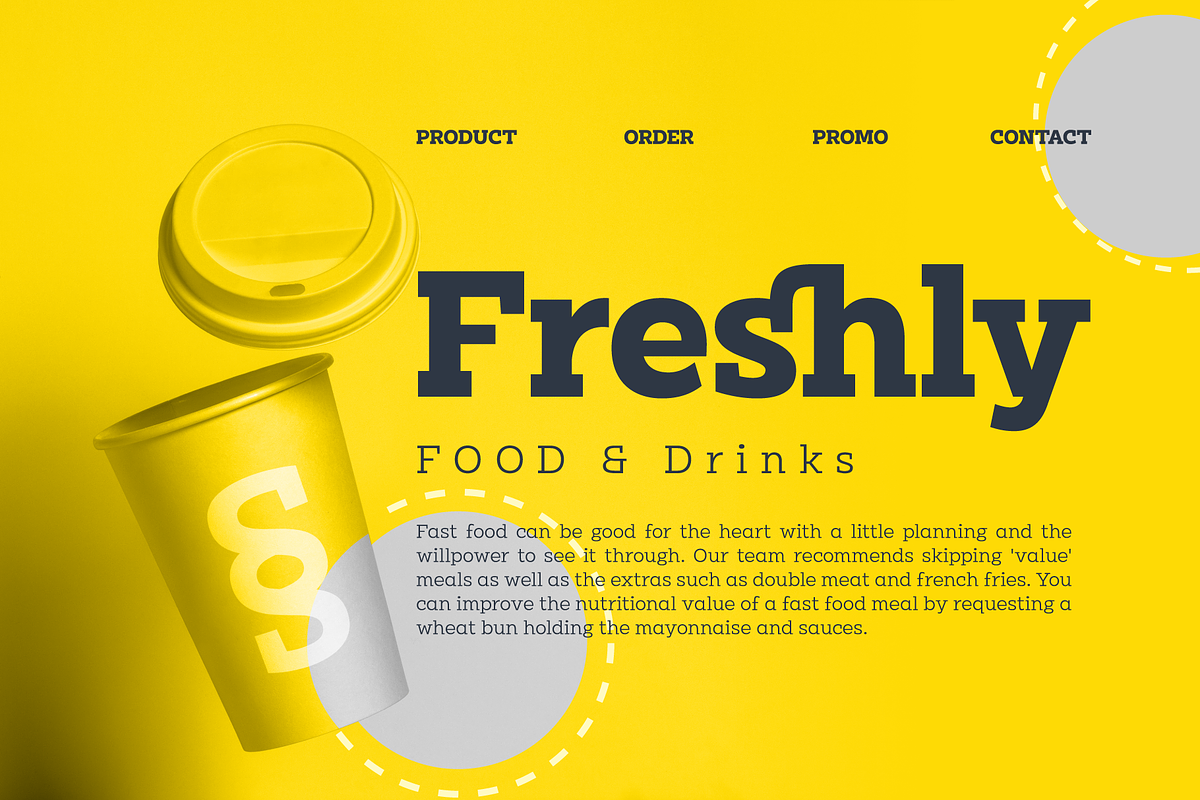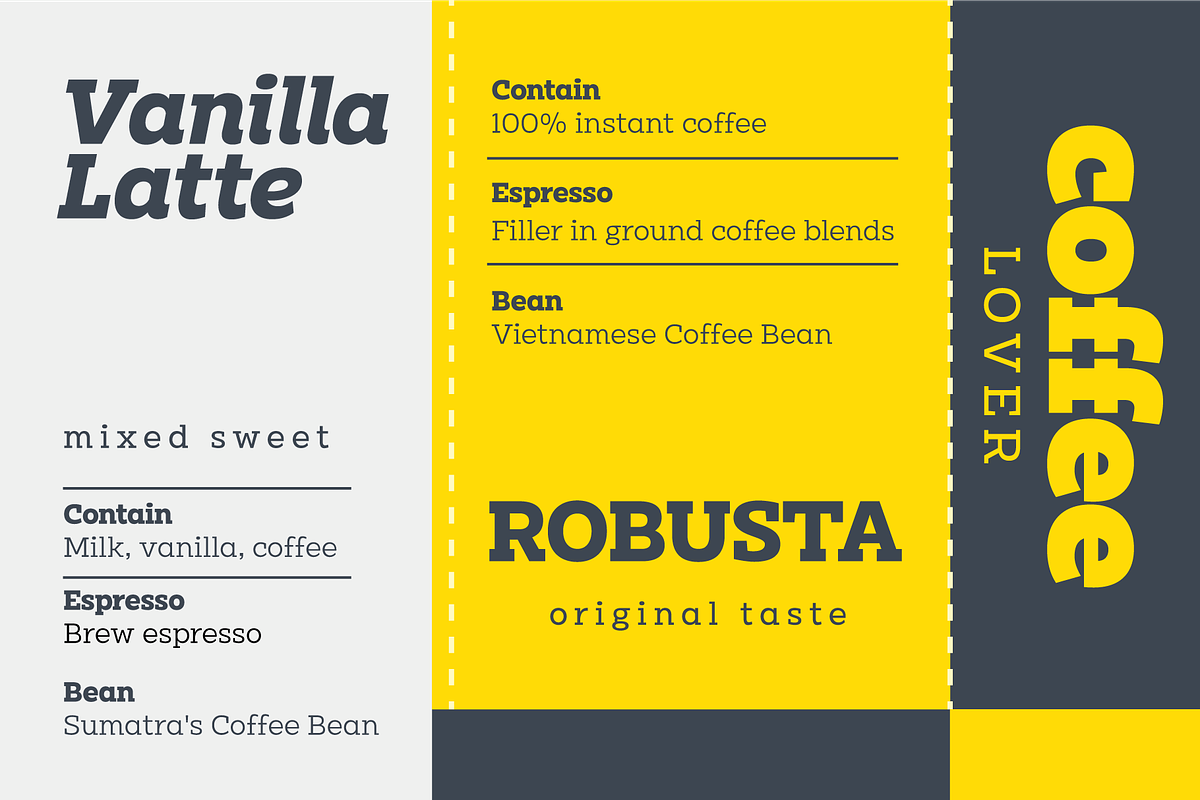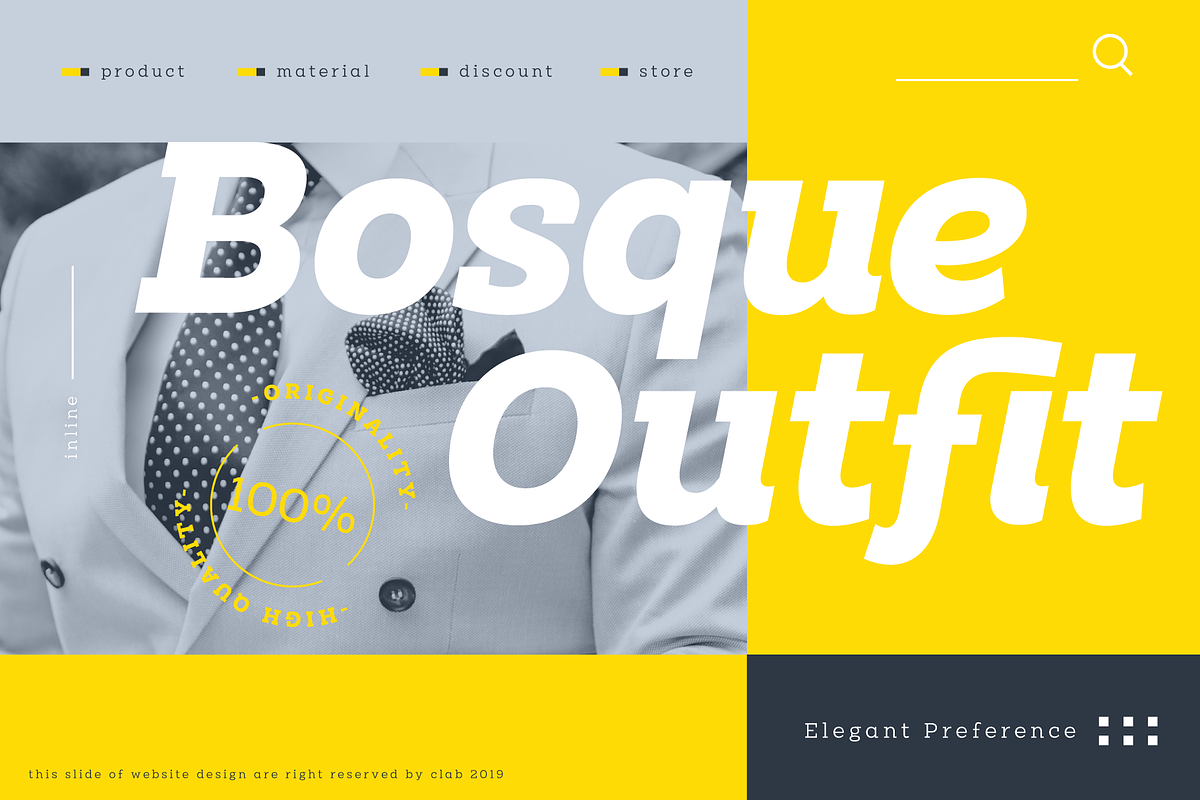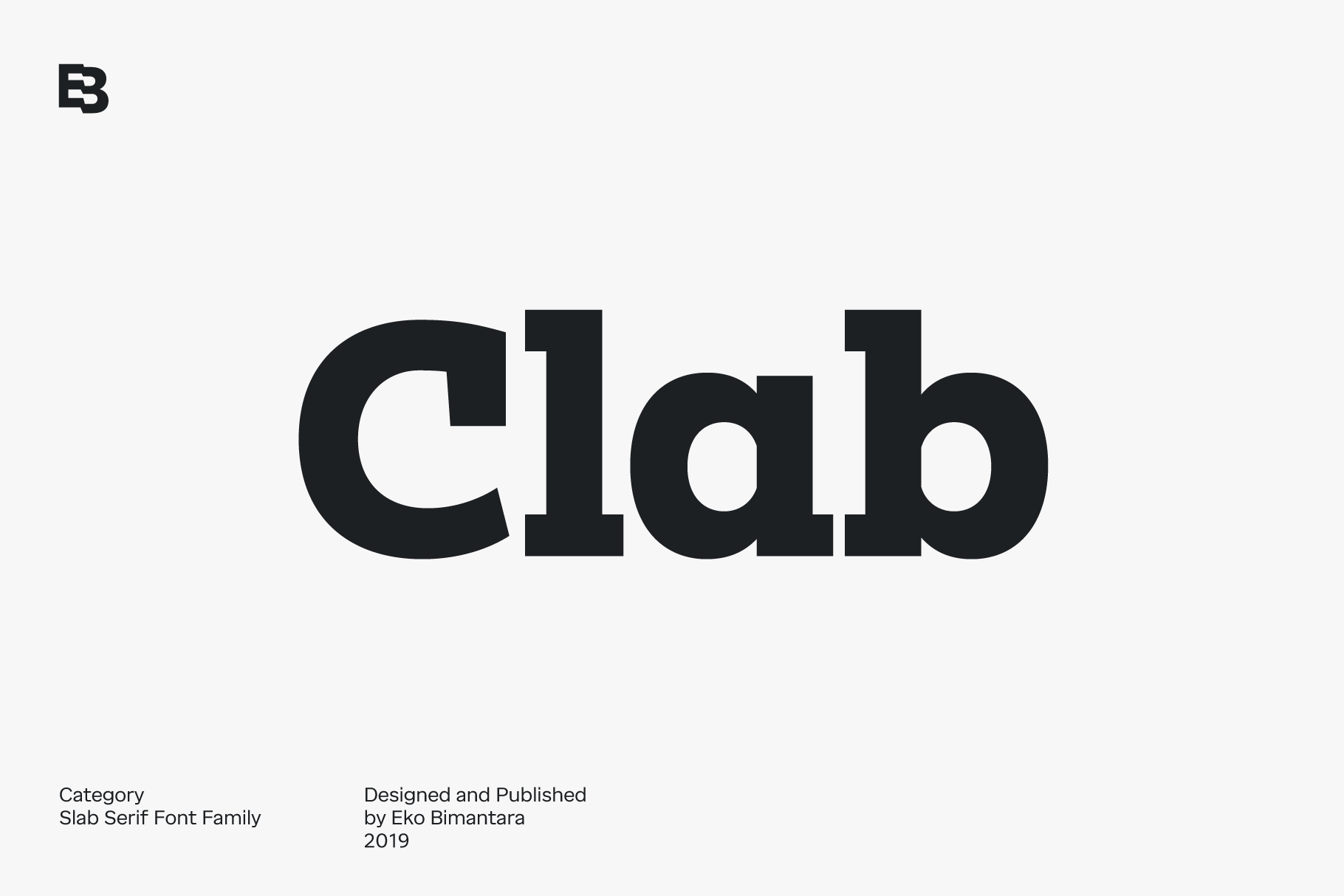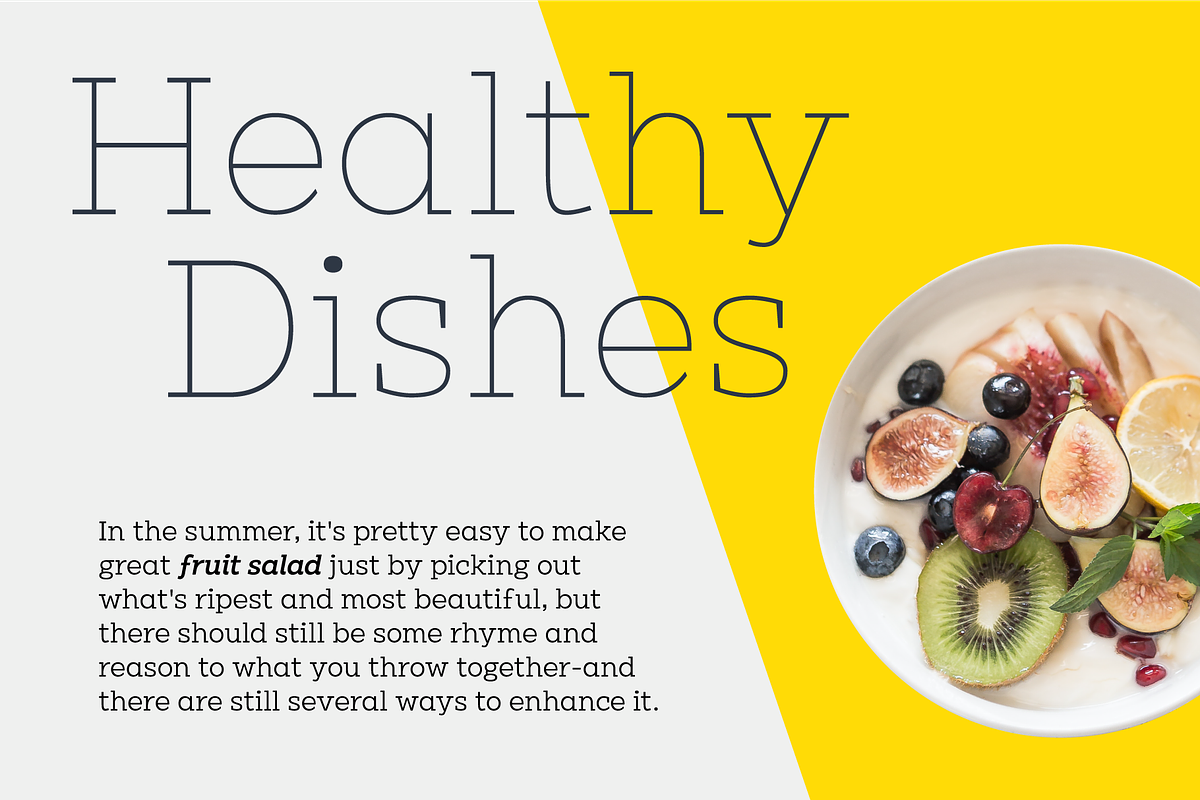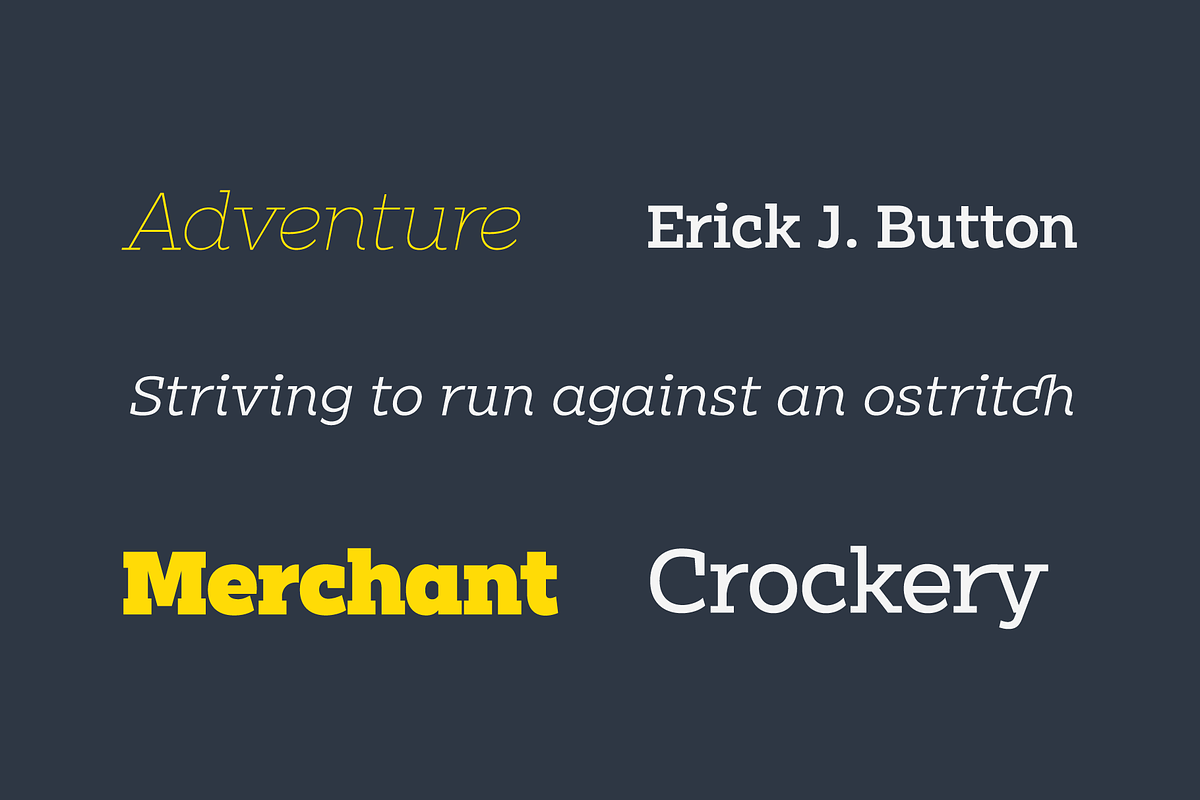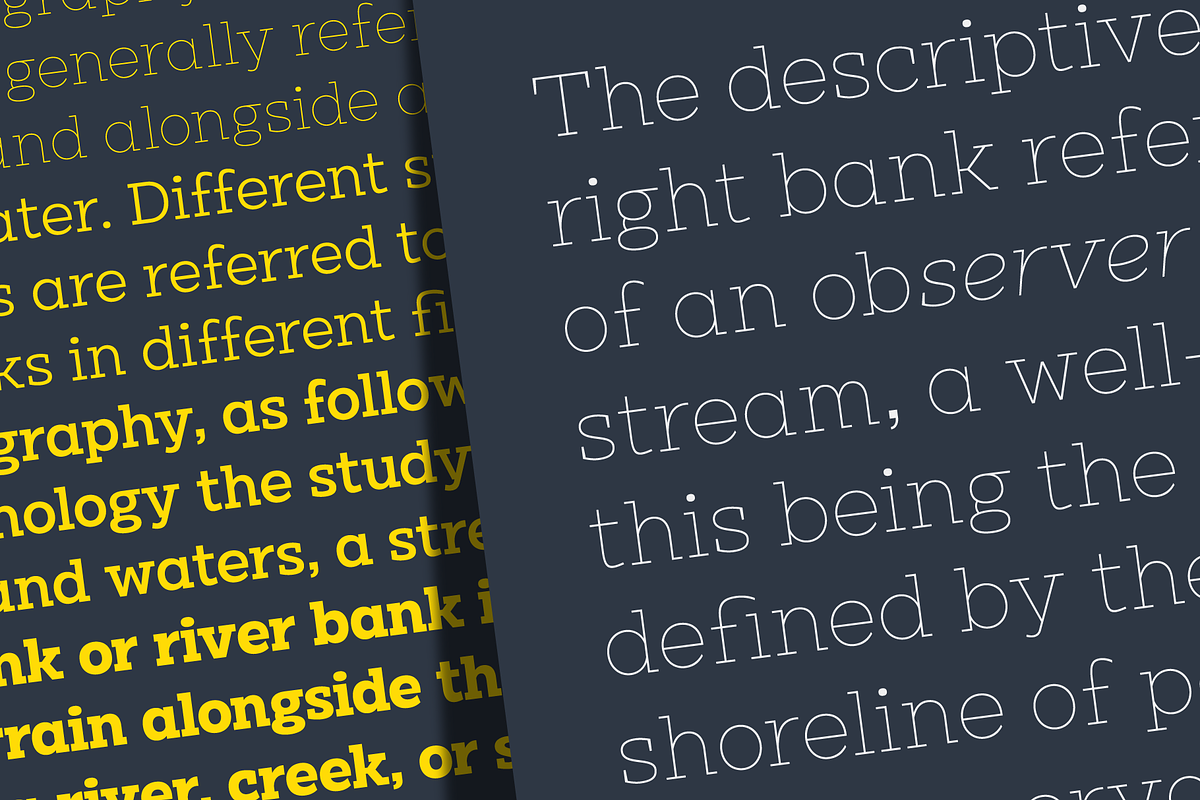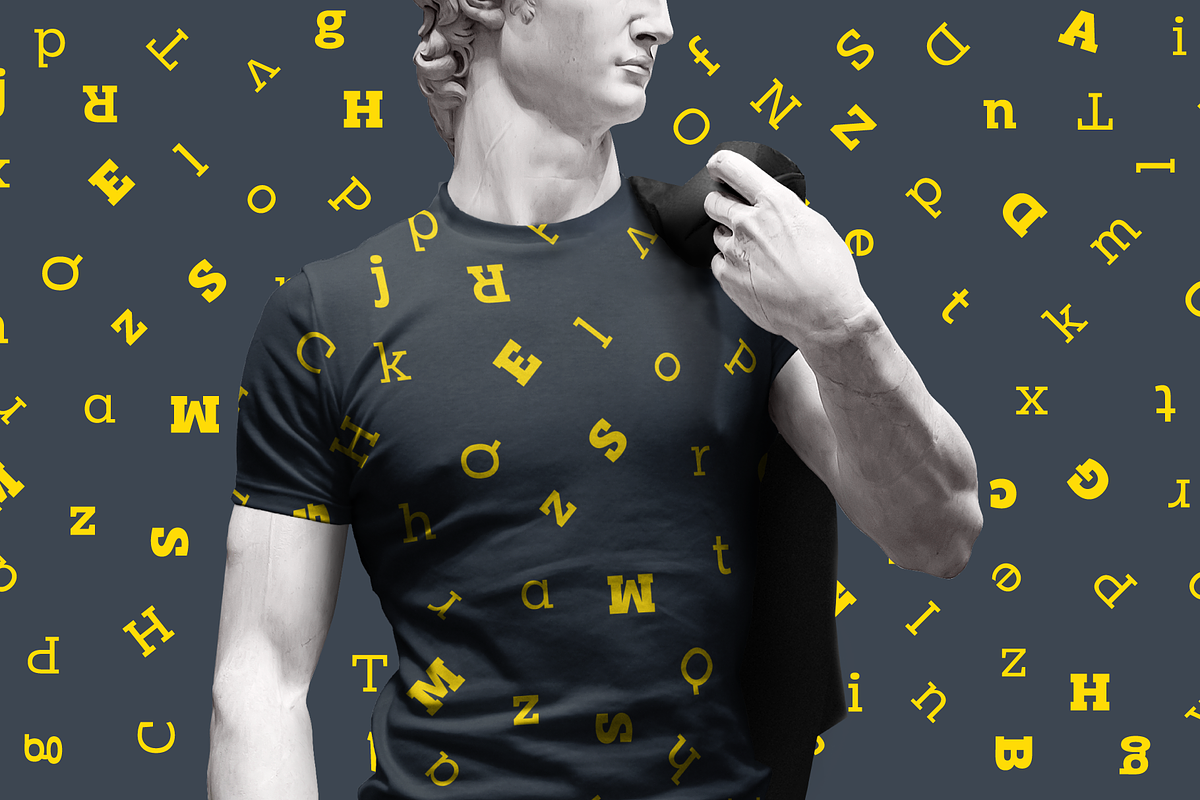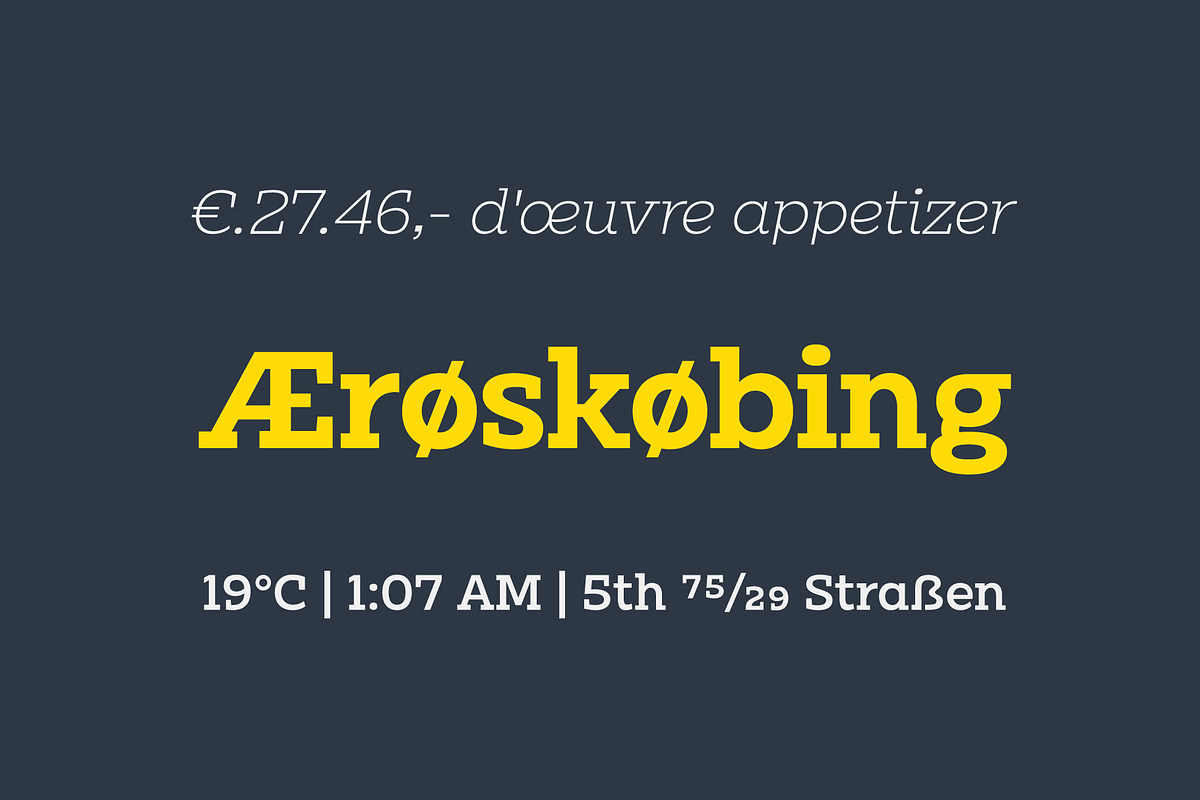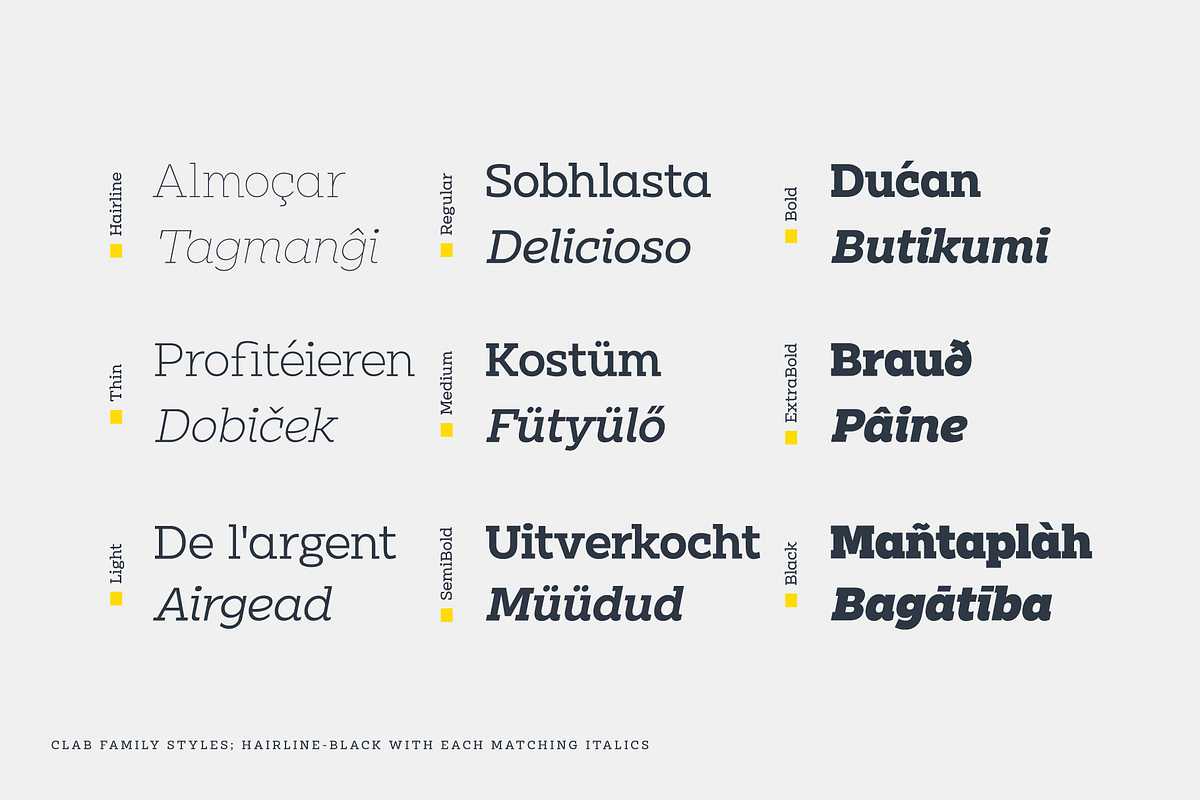
Clab; 18 fonts
Clab is meant for branding. The initial characters were build in bold and chunky personality, yet the thin strokes and flowy italics gives it a versatile and unique set of family. The glyphs crafted in low contrast strokes, short ascenders and descenders and low caps. Clab consist of 9 weight from Hairline to Black with each matching italics. Contain more than 400 glyphs with some OpenType features e.g, standard and discretionary ligature, fraction, e.t.c.